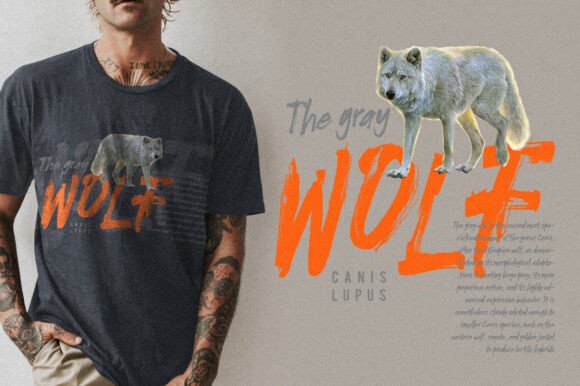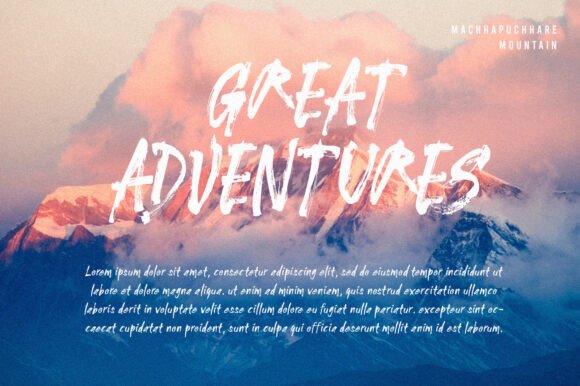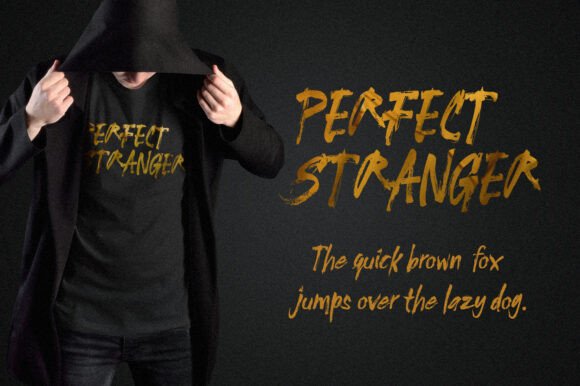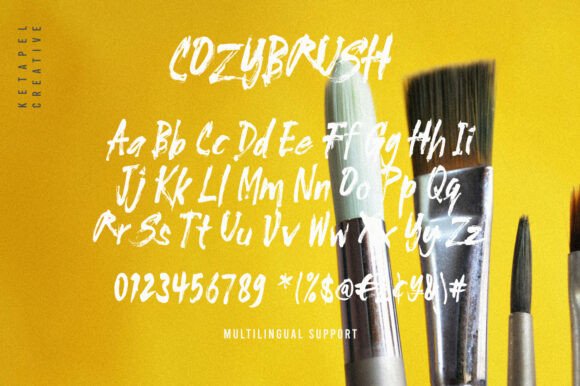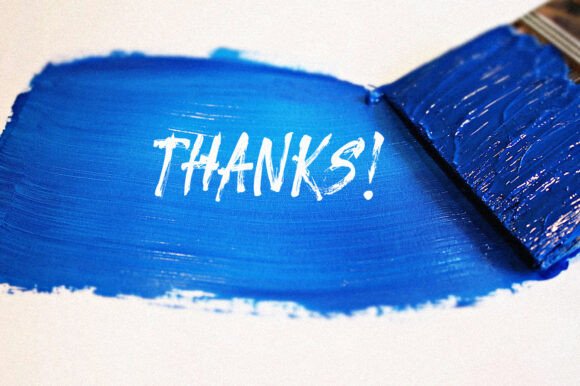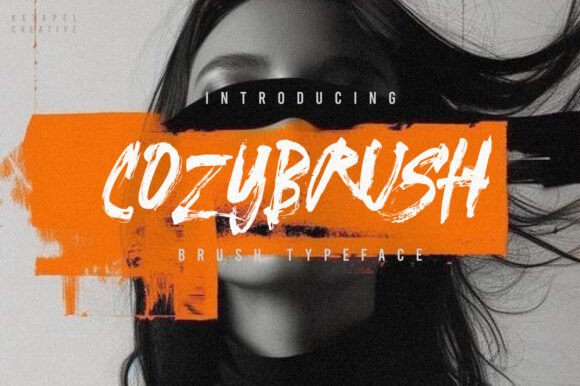
Discover the Unbridled Energy of Cozybrush Font
Are you tired of using the same old fonts in your designs? Look no further than Cozybrush Font, a harsh and strong brush script that adds a unique feel to any project. With its authentic and raw energy, Cozybrush is the perfect choice for designers and crafters looking to make a statement.
The Story Behind Cozybrush Font
Cozybrush Font is more than just a font – it’s an experience. Its harsh and strong brush script design gives it a distinctive look that’s sure to grab attention. The font’s unique feel is inspired by the imperfections of traditional brush writing, giving it a raw and authentic energy that’s hard to find in digital fonts.
What Makes Cozybrush Font So Special?
- Unique Design: Cozybrush Font features a one-of-a-kind design that’s sure to set your project apart from the rest. Its harsh and strong brush script style gives it a bold and eye-catching look that’s perfect for making a statement.
- Authentic and Raw Energy: Cozybrush Font’s authentic and raw energy is inspired by traditional brush writing. This gives it a unique character that’s both rustic and charming.
- Versatility: Cozybrush Font is versatile and can be used in a variety of projects, from branding and advertising to packaging and crafting.
How to Use Cozybrush Font in Your Designs
Cozybrush Font is easy to use and can be incorporated into your designs in a variety of ways. Here are a few ideas to get you started:
- Branding and Advertising: Use Cozybrush Font to add a bold and eye-catching touch to your branding and advertising materials, such as logos, posters, and flyers.
- Packaging Design: Cozybrush Font is perfect for packaging design, adding a unique and rustic touch to product labels and packaging.
- Crafting and DIY Projects: Cozybrush Font is also great for crafting and DIY projects, such as making handmade cards, gift tags, and other paper crafts.
Tips and Tricks for Getting the Most Out of Cozybrush Font
Here are a few tips and tricks for getting the most out of Cozybrush Font:
- Experiment with Different Sizes and Colors: Cozybrush Font looks great in a variety of sizes and colors. Experiment with different combinations to find the one that works best for your project.
- Pair with Other Fonts: Cozybrush Font pairs well with other fonts, such as sans serif fonts and script fonts. Experiment with different pairings to find the one that works best for your project.
- Use it Sparingly: Cozybrush Font is bold and eye-catching, so use it sparingly to avoid overwhelming your design.
Cozybrush Font is a harsh and strong brush script font that adds a unique feel to any project. With its authentic and raw energy, it’s the perfect choice for designers and crafters looking to make a statement. Whether you’re working on a branding project, packaging design, or crafting and DIY project, Cozybrush Font is sure to inspire and add a touch of rustic charm.
Get Inspired by Cozybrush Font